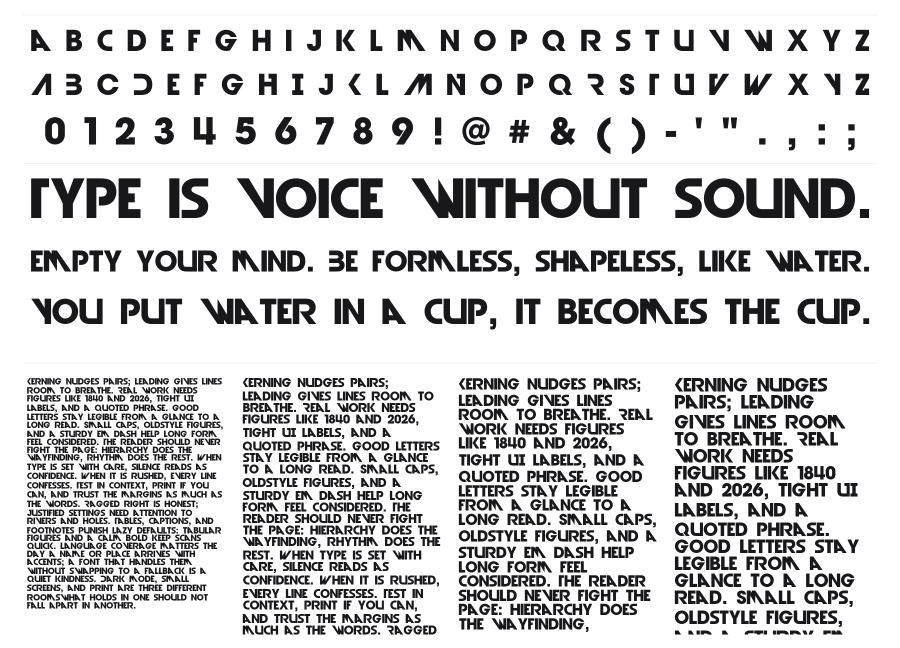
Devil Breeze
Devil Breeze is a bold geometric sans built on ITC Avant Garde proportions, then cut apart with angular notches at stroke terminals and intersections. The result is heavier and more aggressive than its inspiration, with a fragmented industrial edge that reads well at large sizes. It works naturally in music, gaming, and streetwear contexts where blunt geometric power is the point.